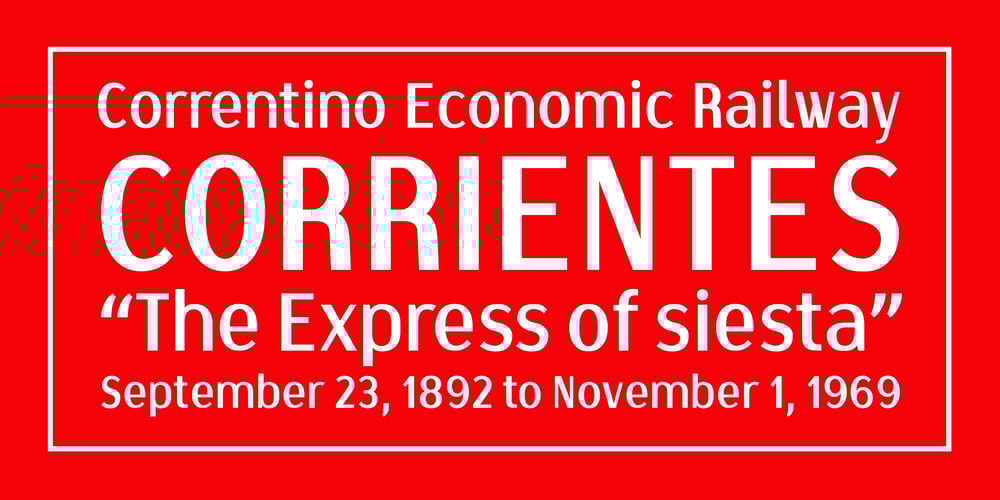
Correntino Railway Font Family was designed by Fabio Ares and published by Fabio Ares. Correntino Railway contains 3 styles and family package options. Correntino Railway is a product of argentine typographic archeology project called “Tipografía Histórica Ferroviaria” (Fabio Ares & Octavio Osores, since 2012). Is about the signboards of the stations of the line of the Argentine Correntino Economic Railway (1892-1969).The letter of this signboards can be described as display type, with elementary geometric shapes, vertical line modulation and slight contrast.